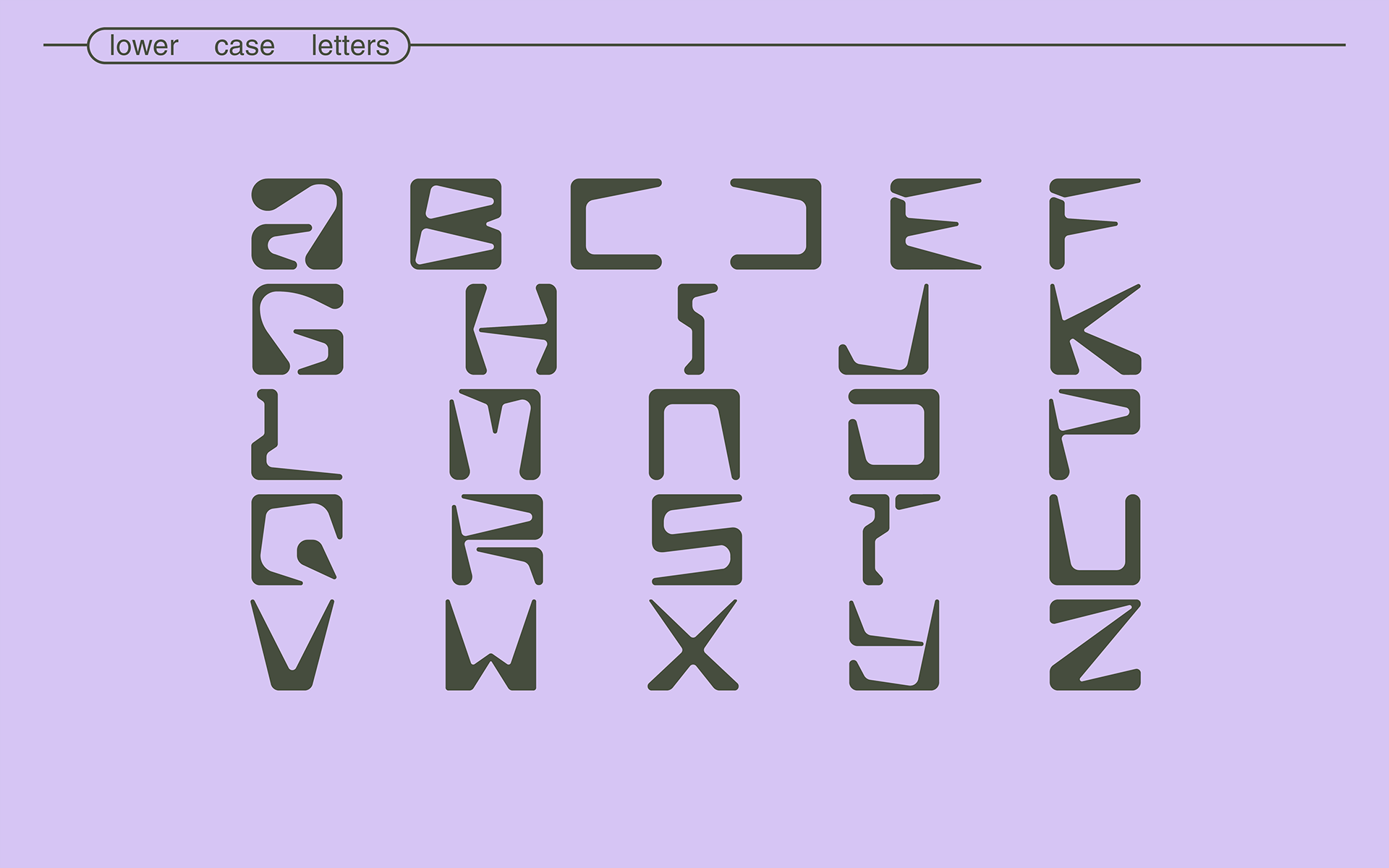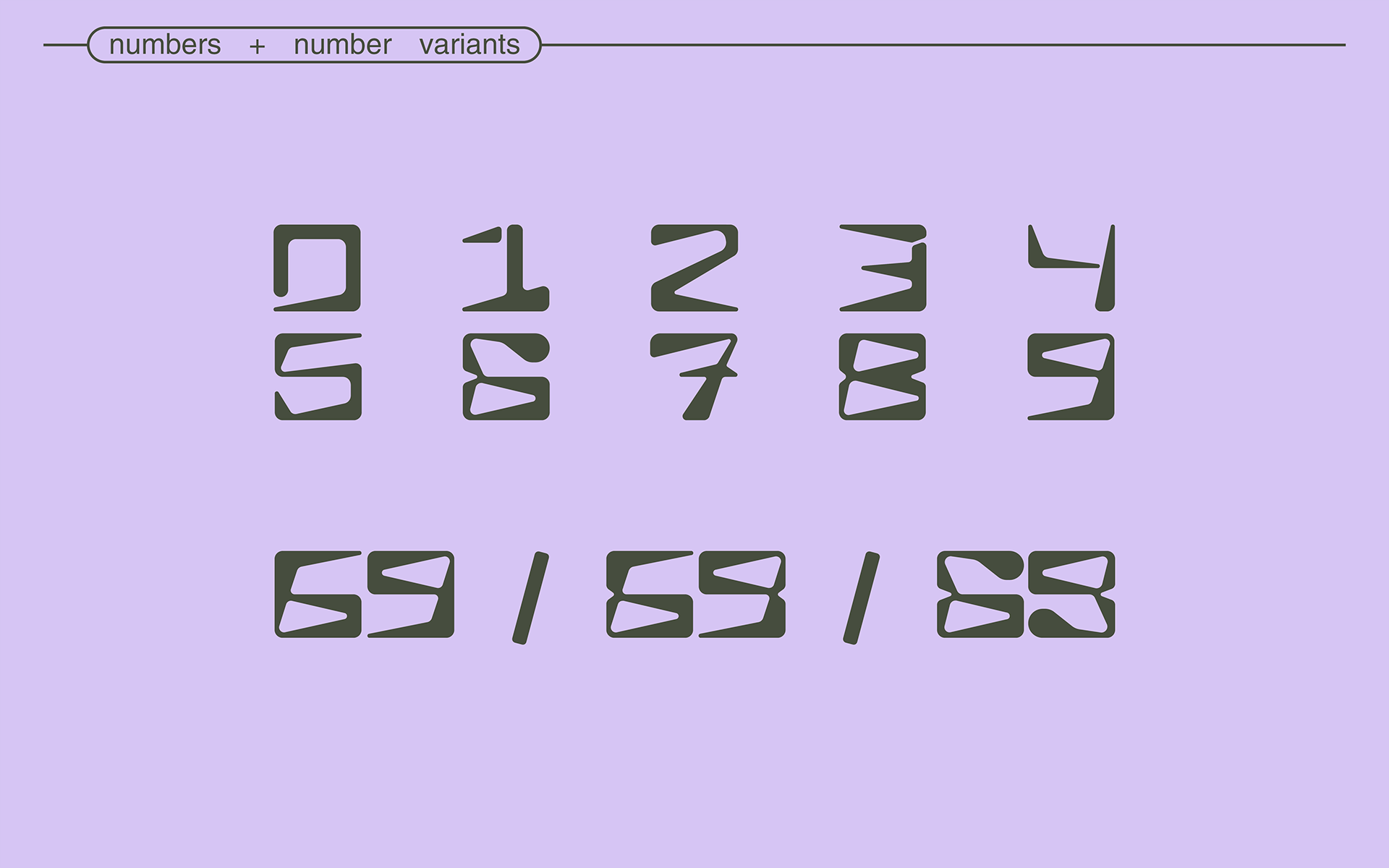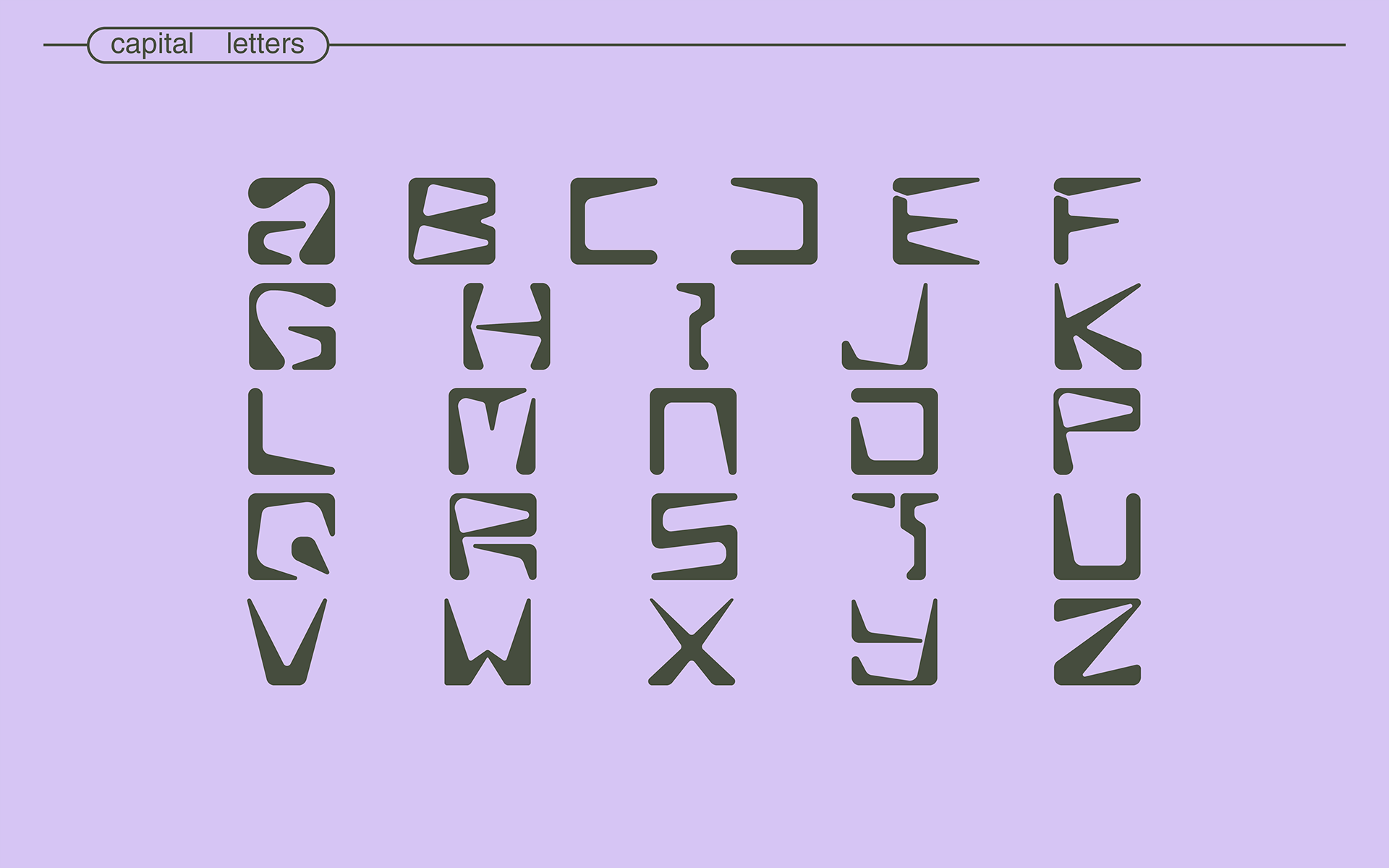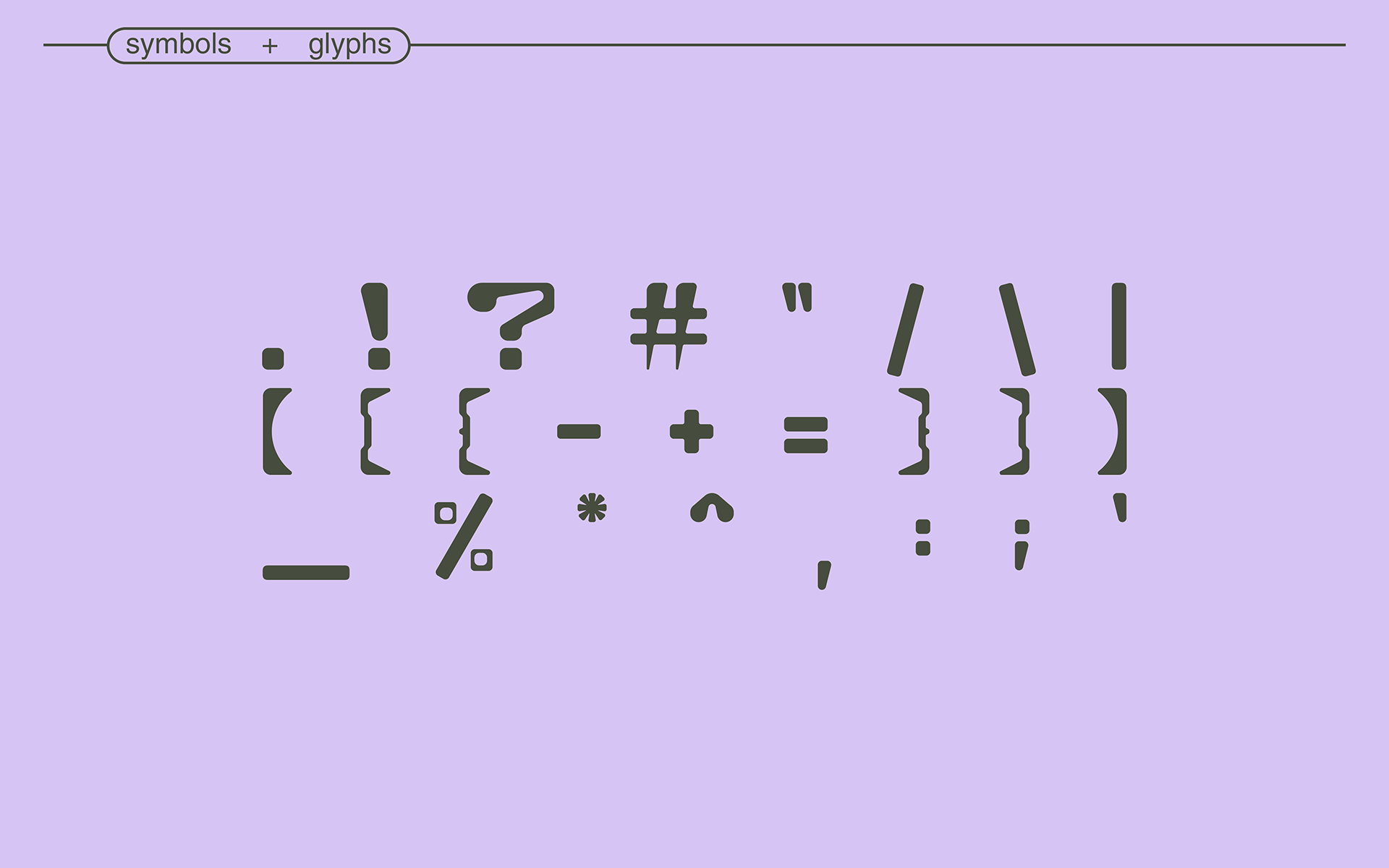
ADAPT Display Font
This is a display font, consisting of only capital letters and punctuation. Created from rounded-out triangles, rectangles, and squares it has a geometric feel along with the consistency in size between majority of the letters. Inspired by 90’s & 00’s futuristic aesthetic, it may be used for a title, logo, or whatever your heart desires to evoke a retro-futuristic feel.